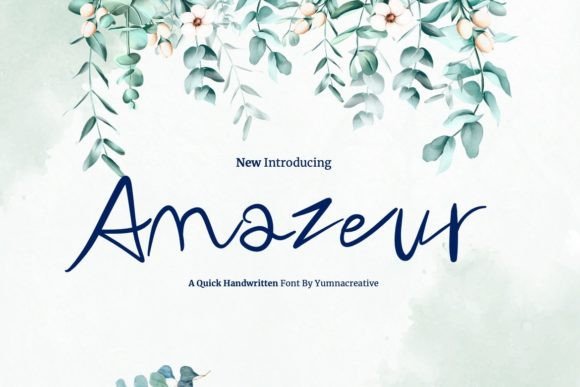
The Amazeur Font: A Whimsical Wonder for Your Designs
An Honest Review of Amazeur Font
So, what makes the Amazeur font so special? Let’s dive into the good stuff and a few quirks I’ve noticed.
What I Love About Amazeur Font
- ✨ Unique and quirky personality that adds a touch of whimsy to any design
- ✅ Handwritten feel that’s perfect for creating greeting cards, social media graphics, and branding materials
- 💫 Uneven and curvy letterforms that give it a delightfully imperfect look
- 🎨 Highly versatile and can be used for a wide range of design projects
While I adore the Amazeur font, there are a few things to keep in mind:
- 🤔 Some letters may appear a bit too condensed or stretched, which can affect readability at smaller font sizes
- ⚠️ Limited availability of stylistic alternates, which may limit your design options
While the true story behind the Amazeur font’s creation may be unknown, it’s easy to imagine a designer who was inspired by the quirky, handmade qualities of vintage typography. Perhaps they wanted to create a font that would add a touch of whimsy to everyday designs, making them more approachable and engaging.
| What type of projects is Amazeur font best suited for? | Amazeur font is perfect for creating unique branding, greeting cards, social media graphics, and other designs that require a touch of whimsy and personality. |
| Is Amazeur font available in different weights or styles? | Currently, Amazeur font is available in a single weight, but its versatility and range of OpenType features make it suitable for a wide range of design applications. |